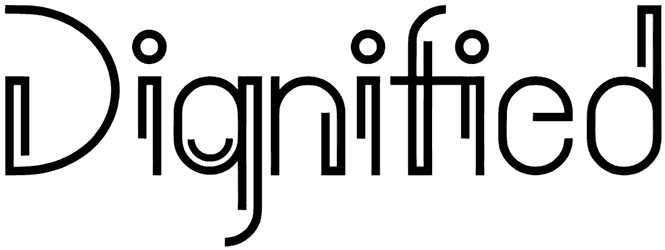
Dignified Font
The use of lines can turn any project into an exciting design that is enjoyable for the viewer to discover. That’s why Dignified can open a special place in your font collection. This maze font, which doesn’t include numbers, draws every viewer toward and encourages them to light on their inner unknowns.
The arcs, angles, and precise and delicate lines of this neon font have made it possible to use it in architectural, engineering, and mathematical projects for designing logos or posters.